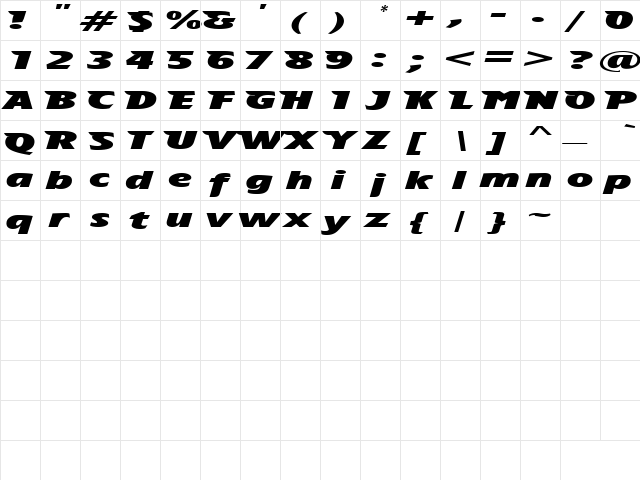
The Aeroplane Flies High Heavy
Design Context for The Aeroplane Flies High Typeface
The Aeroplane Flies High is a composed and adaptable typeface that performs quietly and consistently across a wide range of design contexts.